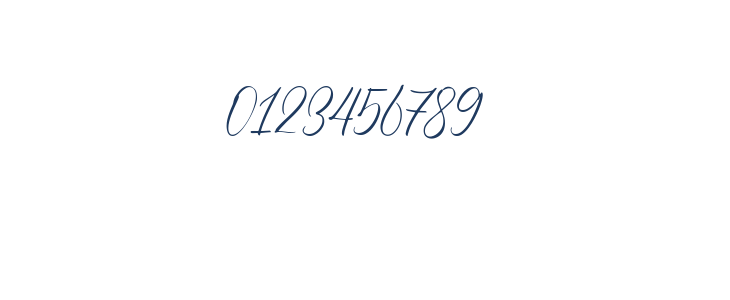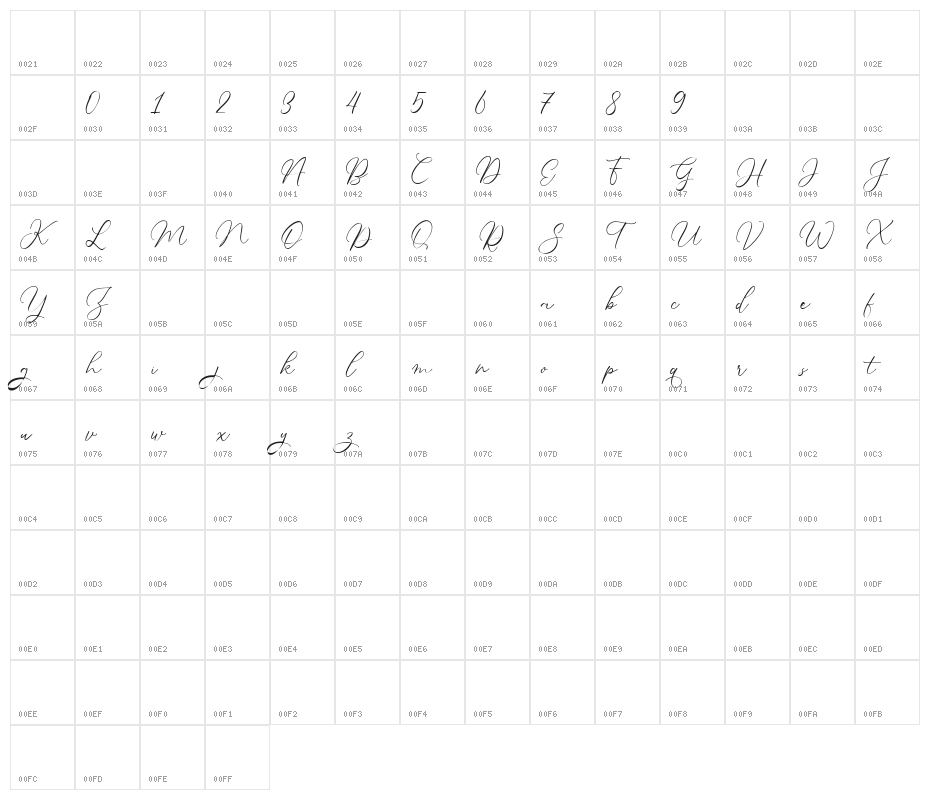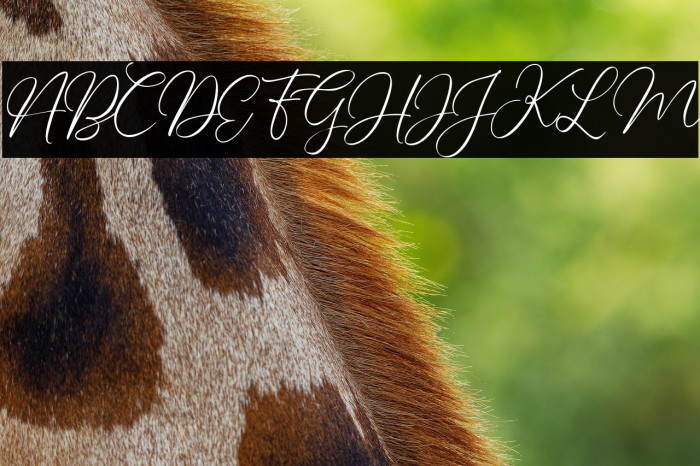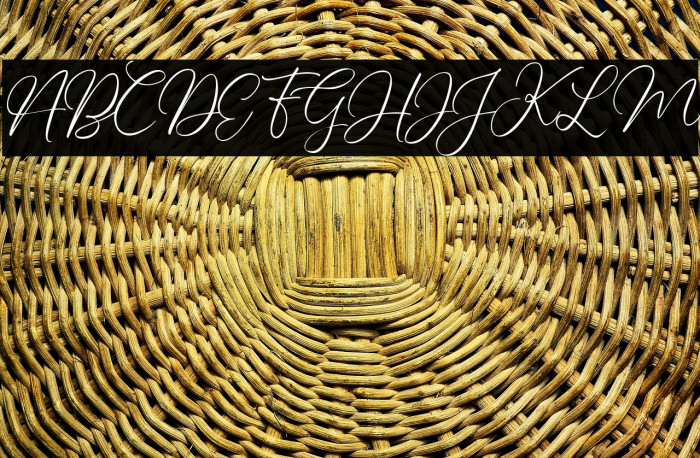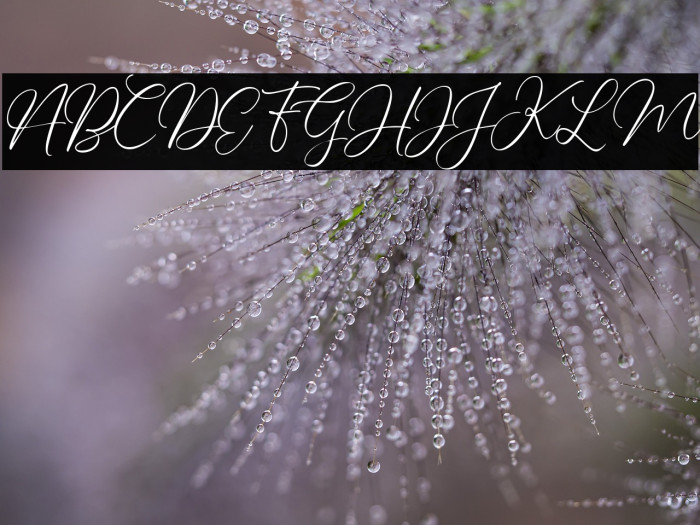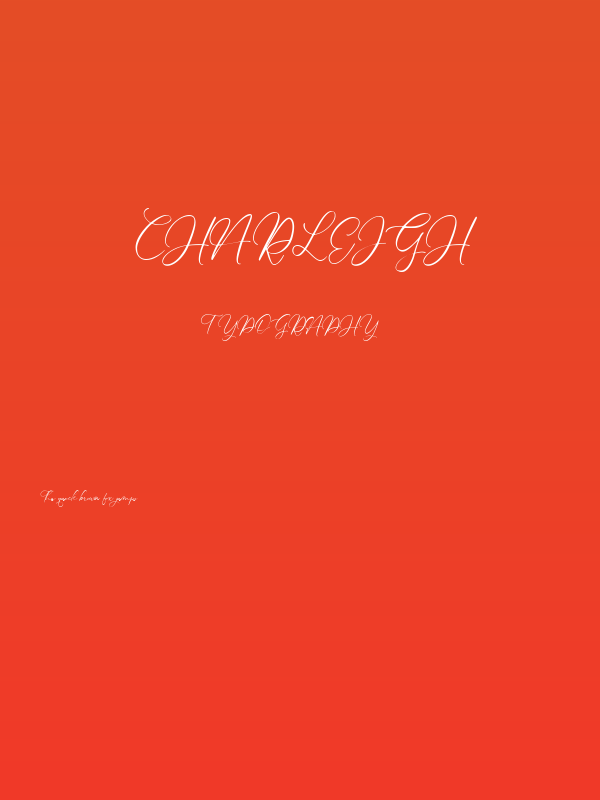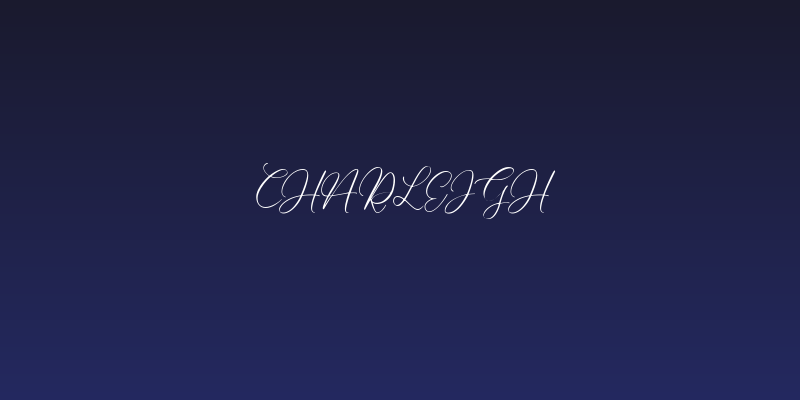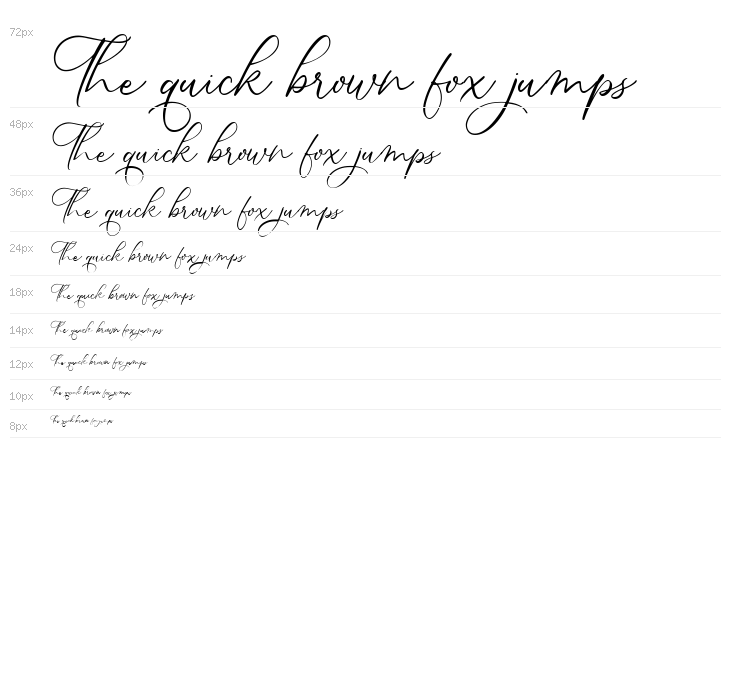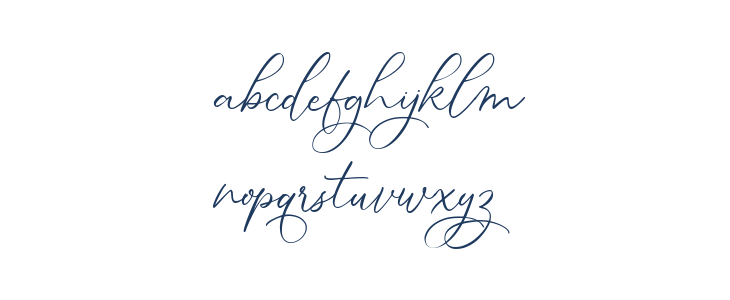
Charleigh Font
Charleigh Description
This elegant script font features flowing, interconnected letters that exude a sense of sophistication and grace. The uppercase letters are particularly ornate, with sweeping curves and flourishes that add a touch of drama. The lowercase letters maintain a consistent style, with gentle loops and a smooth flow that enhances readability. The numerals are designed to match the overall aesthetic, with a slightly playful yet refined appearance. This font is perfect for projects that require a personal touch, such as invitations, greeting cards, or branding materials. Its delicate lines and artistic flair make it ideal for conveying elegance and creativity.
| Use Case | Headlines, Invitations, Branding |
| Proposed Projects | Ideal for wedding invitations, elegant branding, greeting cards, and artistic projects. |